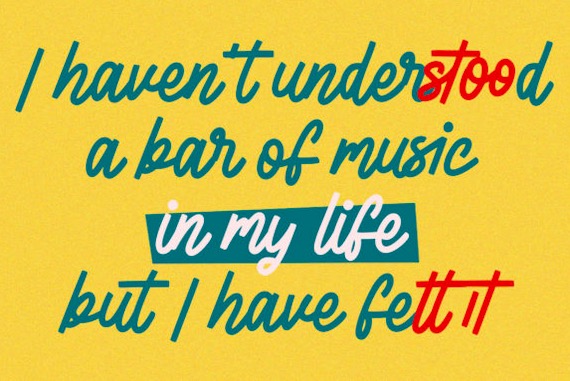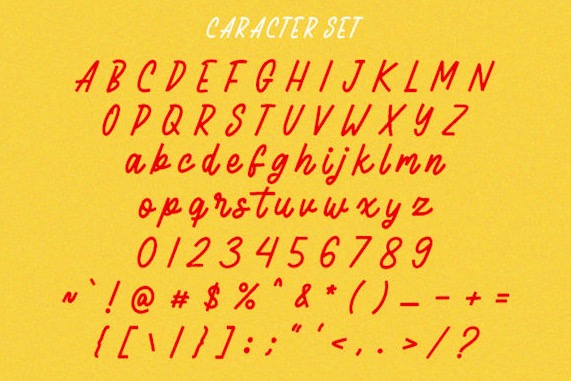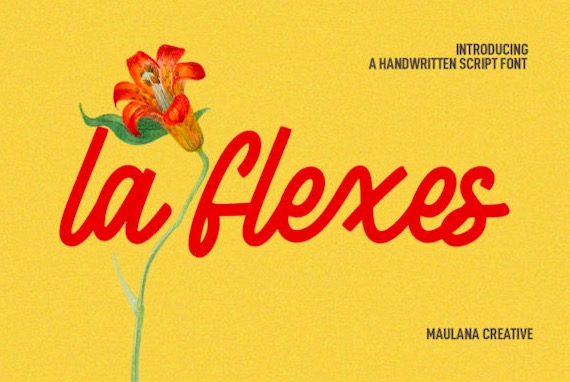
La Flexes is a friendly and cool handwritten font that was created and shared by Maulana Creative along with a fancy look. This Script font will add classily and class to any of your design projects. This font can be used to write various kinds of products according to the aspect of each need.
La flexes Handwritten Script Font